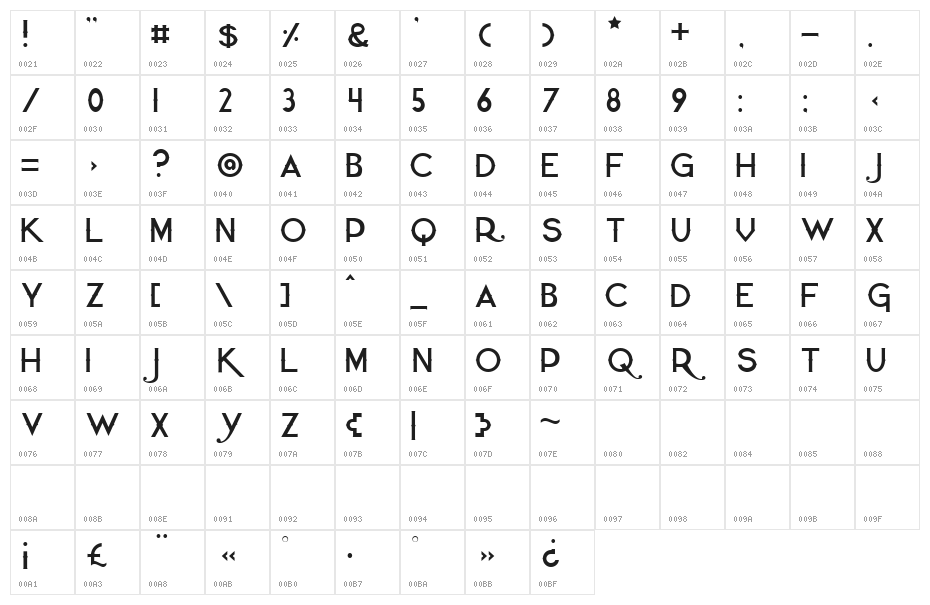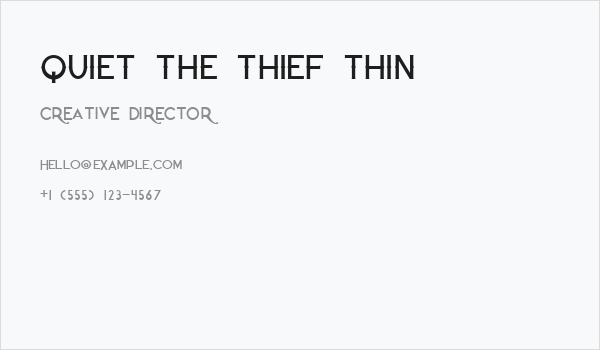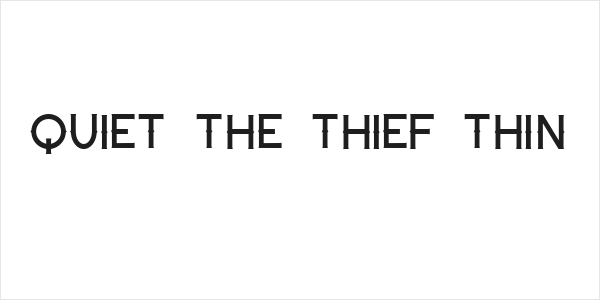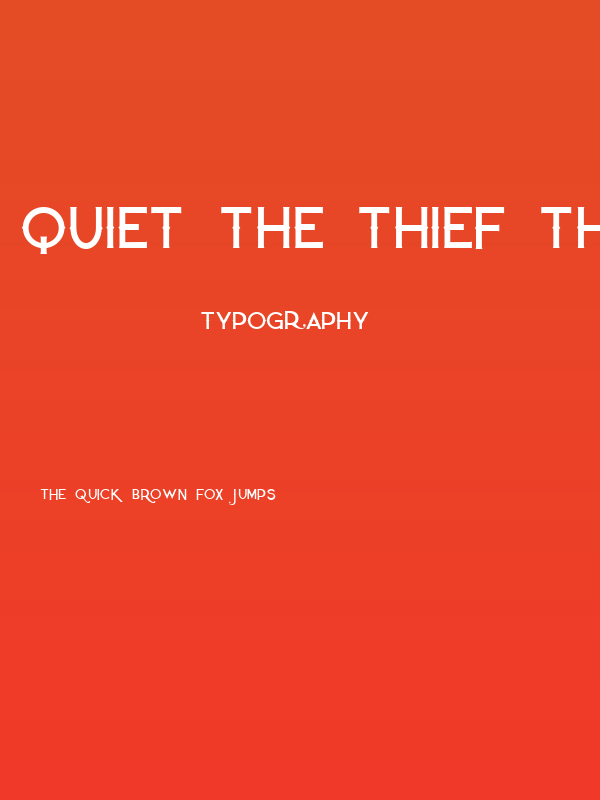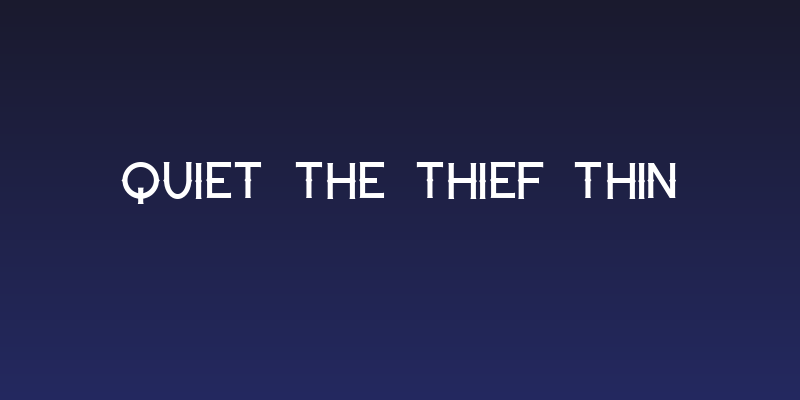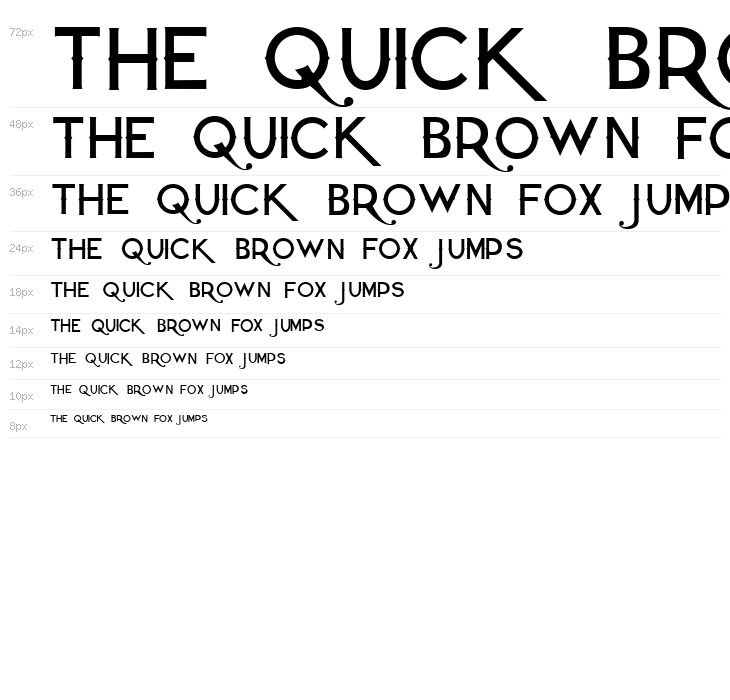
Quiet the Thief Thin Font
Quiet the Thief Thin Description
This font features a unique blend of modern and vintage styles, characterized by its distinct geometric shapes and subtle decorative elements. The uppercase letters are bold and commanding, with sharp angles and clean lines, while the lowercase letters maintain a consistent style with slight variations in curvature. Numbers are designed with a similar aesthetic, ensuring uniformity across all characters. Special characters are thoughtfully crafted, adding a touch of elegance and flair. The overall design is both eye-catching and versatile, making it suitable for a variety of applications.
| Proposed Projects | Ideal for branding, posters, and editorial design where a bold statement is needed. |